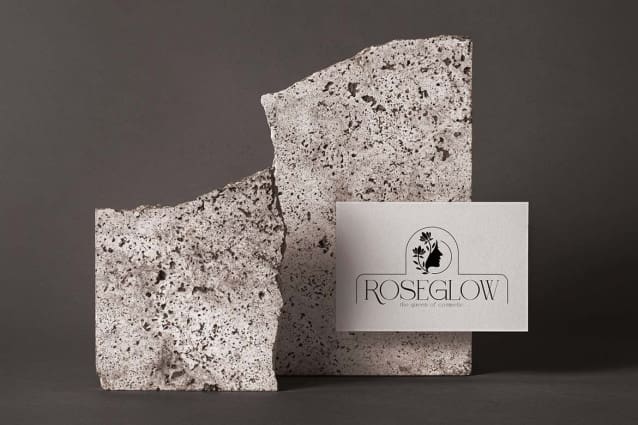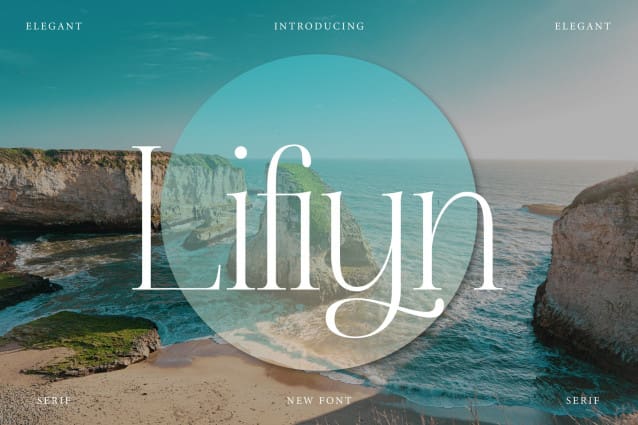
Lifiyn Font
Lifiyn Font is an elegant serif font that exudes sophistication and timeless beauty. With its graceful curves, refined serifs, and balanced proportions, it is perfect for high-end branding, editorial design, wedding invitations, and luxury packaging. This typeface offers a classic, refined look that enhances any project, combining traditional elegance with modern versatility. Lifiyn’s elegant, understated design makes it an excellent choice for creating designs that demand a touch of class and sophistication.